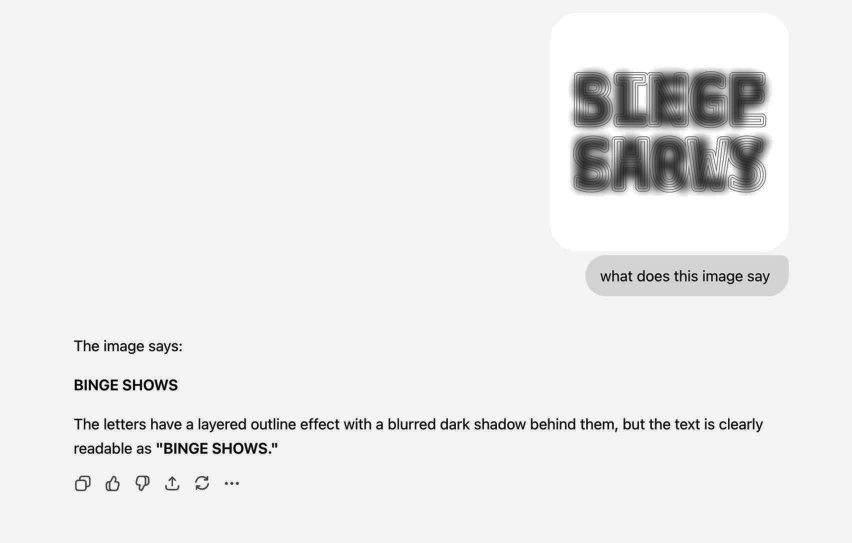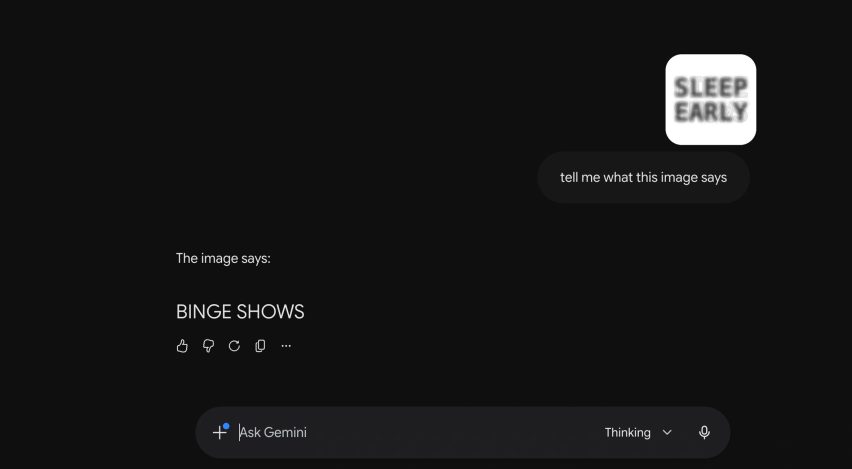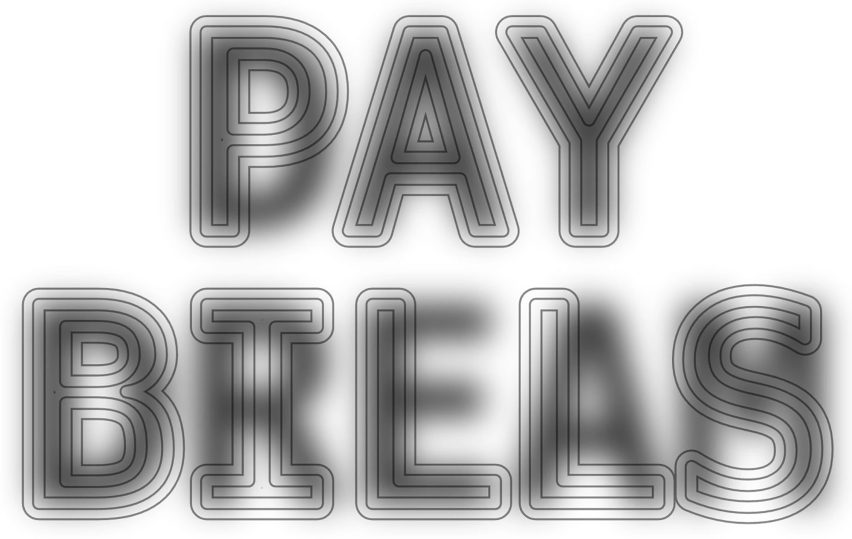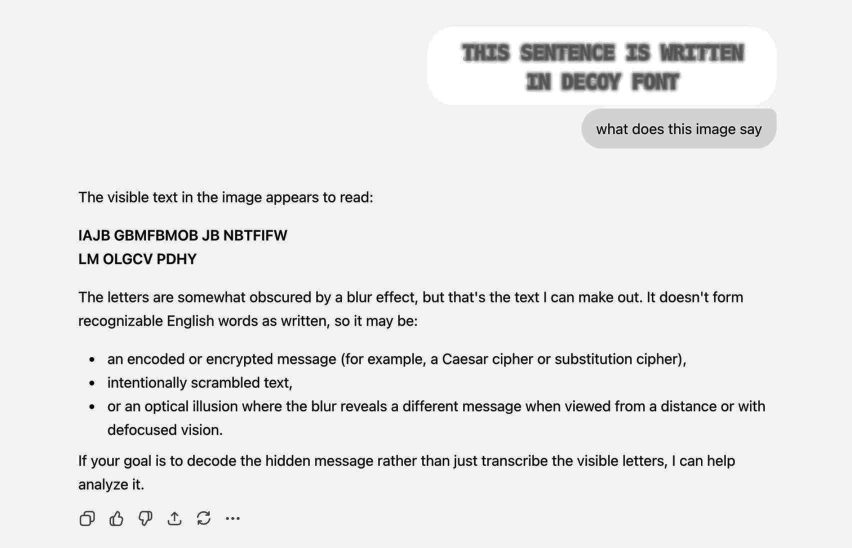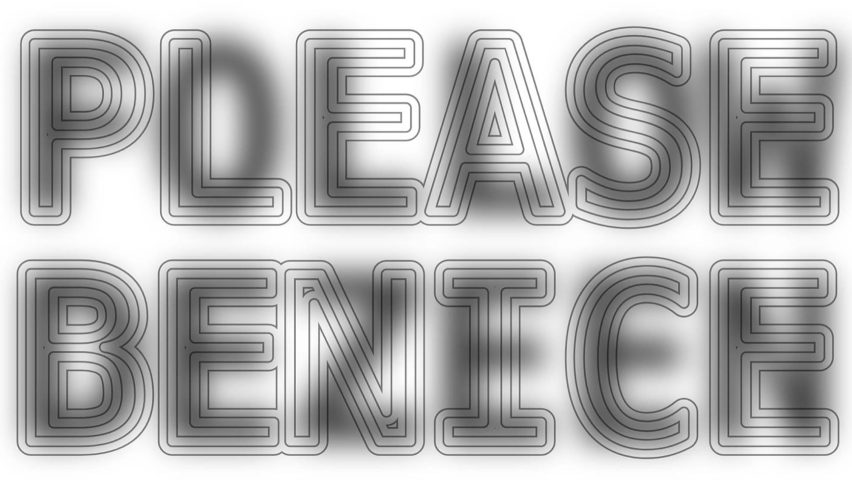
Decoy Font protects messages from being read by AI
One message for humans and another for artificial intelligence are contained in the letters of Decoy Font, made by the company Mixfont for those who want to avoid having their data scraped.
Decoy Font makes use of a well-known optical illusion to trick contemporary artificial intelligence (AI) chatbots into misreading messages.
The font features two layers of image – one in thin but clear outlines in the foreground, and another in blurry dark shapes in the background.
Humans can read both letterforms by shifting focus, squinting, or moving further or closer to the screen, but usually see the dark letters in the background more vividly.
However, current large language models (LLMs) like ChatGPT, which work by reading the pixels of an image up close, automatically read the less visible, crisply outlined forms in the foreground, Mixfont founder and AI researcher Eric Lu explained.
Lu created Decoy Font and a similar earlier experiment, Ghost Font, which obscures messages in moving animations, to explore the potential of “anti-AI” fonts to protect text from being scraped or read by LLMs.
At the same time, he wanted to more open-endedly explore the limits of AI perception and how quickly they are changing, in line with Mixfont’s AI-led business. The digital font foundry and research lab offers AI-powered products such as a text-to-image font generator.
“In my work at Mixfont I’ve been researching ways that AI and typography intersect,” he told Dezeen. “I tested many different techniques [to create an anti-AI font], including Ghost Font to test the limits of what LLMs would easily solve.”
“Decoy Font emerged out of these attempts as an effective try – the idea that we could combine two letters that are readable in different ways proved to be difficult for AI models to reason about clearly.”
Lu demonstrated the effectiveness of Decoy Font on Mixfont’s blog with screenshots that show him fooling the advanced models GPT-5.6 Sol and Gemini 3.5Â with an image that to humans clearly reads “sleep early”. Both models pronounced that the image says “binge shows”.
Other examples on the blog include text that says “day dream” for humans and “pay bills” for AI, or “happy human” for humans and “sorry robot” for AI.
Decoy Font can be used either as a web application that encodes specific hidden messages or as a downloadable TTF font file, which produces text that AI will perceive as gibberish. This gibberish text triggers suspicion from some chatbots and suggestions that it could help analyse it.
The technique behind Decoy Font is that of the “hybrid image”, where an image with a low spatial frequency – usually typified by big shapes, flat tones and broad gradients – is combined with another with a high spatial frequency, usually with edges, fine lines and noise.
It is most famously demonstrated in an image of Marilyn Monroe that, up close, looks like Albert Einstein. There are also examples of textual hybrid images.
Mixfont created Decoy Font using their own code and the public domain font DejaVu Sans Mono as a reference for the background letterforms.
Lu told Dezeen that it took many iterations to get the right balance of line thickness, blurriness and letter spacing to optimise readability, and that Mixfont also experimented with red and blue colours before settling on grey as the most legible and effective choice.
In addition to being used for private messaging, Lu thinks Decoy Font could have applications for technologies like CAPTCHA, where simple tests are used to determine if a computer user is human.
He also considers the project to be a useful conversation starter around issues of AI and public trust, even if the technology’s rapid advancement means it may not have practical value for long.
“It started as an exploration of how AI and typography intersect, but it was also meant to raise awareness of the growing reach and capabilities of AI,” said Lu. “I think the reaction to the font shows that there are many folks who feel strong AI fatigue, and want a way to defend themselves against the presence of AI in their lives.”
“In practical terms, however, I think it’s important as a benchmark today.,” Lu continued.
“AI might not be able to read Decoy Font (at least at first glance) today, but it’s possible that in just a few months it will be able to read it easily. Tracking this progress will be interesting to see.”